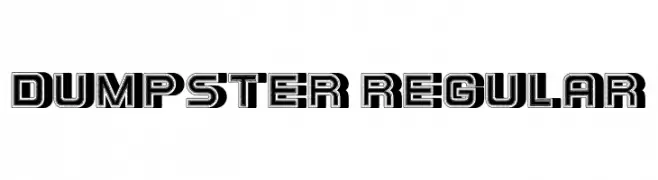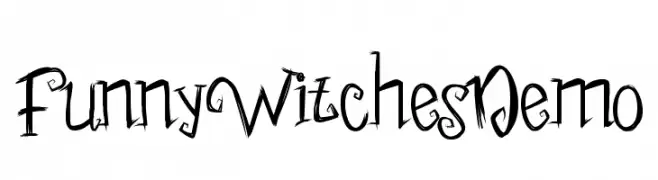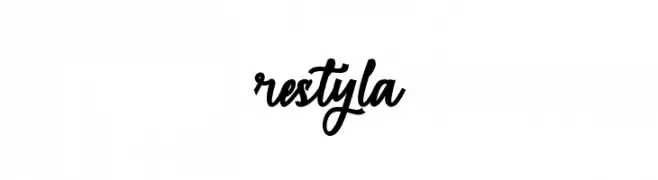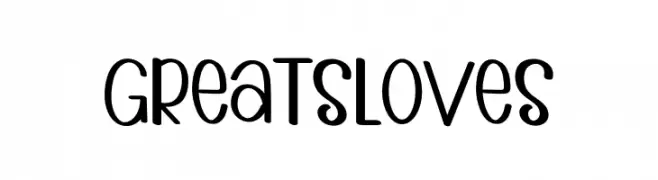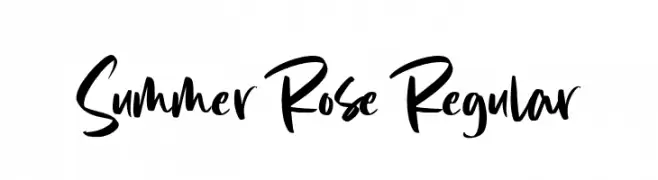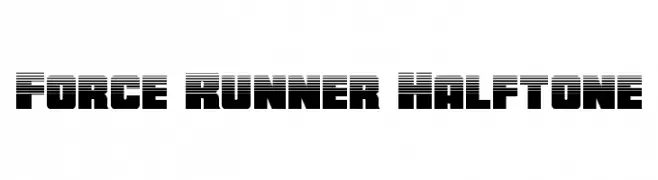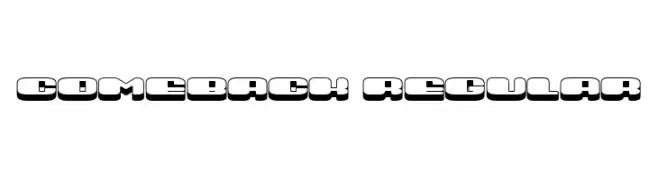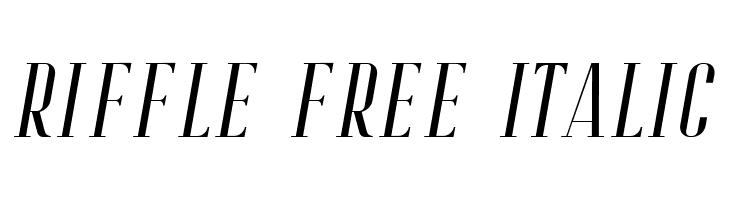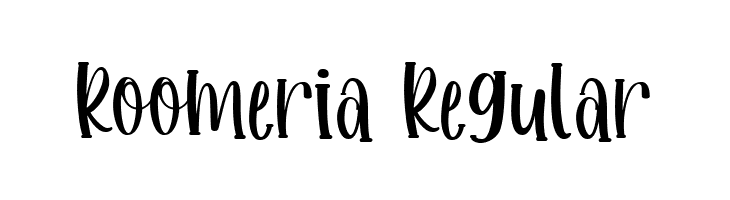
An elegant script font with flowing, cursive strokes and decorative flourishes.
A bold, textured font with a rugged, distressed appearance.
A casual, handwritten font with a playful and informal style.
A bold, industrial font with a textured, three-dimensional appearance.
A whimsical, hand-drawn font with a magical, gothic flair.
A bold, decorative script font with dramatic flourishes.
A playful, rounded font with a harmonious blend of geometric and organic shapes.
A bold, expressive handwritten font with fluid strokes and dynamic style.
A bold, futuristic font with a halftone effect and dynamic, block-like forms.
A bold, rounded font with a 3D effect and playful style.